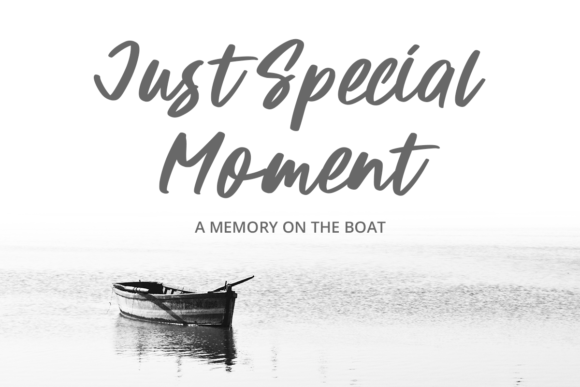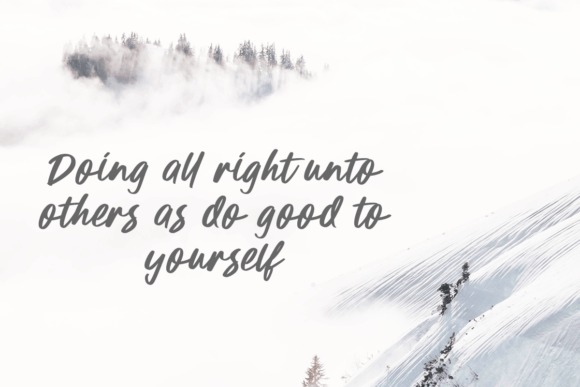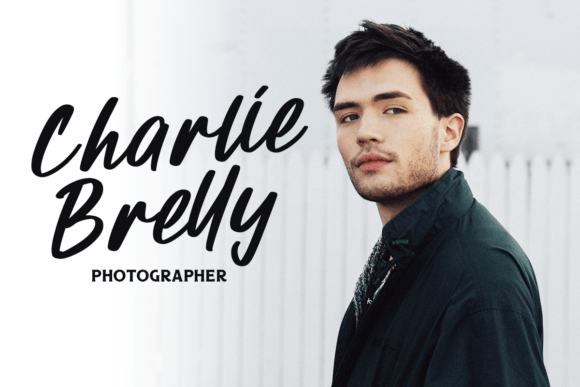
Introduction to Shortime Font
Shortime is a luxury handwritten font.
Its natural style is perfect for invitations, quotes, T-shirt designs, greeting cards, logos, and much more .